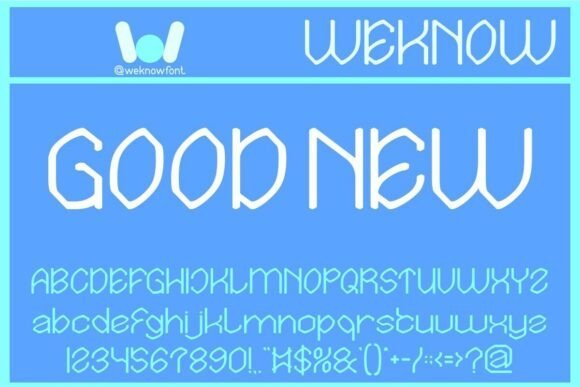
The Birth of a New Look
Remember the moment when a design sparks creativity and takes your project to the next level? For many designers, that moment is when they stumble upon the perfect font to bring their vision to life. For us, that moment came when we discovered Good New Font – a game-changing typeface that seamlessly blends the organic feel of handwritten expression with the precision of geometric structure.
Good New Font is more than just a stylish addition to your design arsenal; it’s a powerful tool that can elevate your visual identity and set you apart from the crowd. Its unique blend of casual script influences and retro-techno aesthetic makes it perfect for logos, headlines, and corporate branding that demands a playful yet professional tone.
Good New Font Key Features
- Font Family: Good New Font offers a modern sans-serif font family with 12 styles, ranging from Light to Bold.
- Unique Characteristics: Features a unique blend of geometric and organic shapes, resulting in a clean and friendly appearance that works well for body text and headings.
Good New Font Review
I’ve had the chance to work with “Good New Font” for a while now, and I have to say, it’s a solid choice for many projects. ✨ The font’s versatility and legibility make it suitable for both body text and headings. It’s also quite easy to read, even at smaller font sizes. The font’s clean design and subtle nuances make it a great choice for digital interfaces and printed materials.
- ✨ Excellent legibility, even at small font sizes
- ✨ Versatile and suitable for both digital and printed materials
- ✨ Clean design with subtle nuances
- ⚠️ Limited character set, which might be a concern for non-Latin scripts
- ⚠️ Not as expressive or attention-grabbing as some other fonts
Overall, I think “Good New Font” is a reliable choice for most projects. It’s not going to blow anyone away with its unique features, but it gets the job done. If you’re looking for a clean, easy-to-read font that’s suitable for a wide range of applications, then “Good New Font” might be worth considering.
Good News Font is a versatile font that can be used in a variety of applications. Here are some tips for getting the most out of it:
- Use Good News Font for headlines and titles to add a touch of elegance and sophistication.
- Pair Good News Font with other fonts to create a unique and interesting typography combination.
- Use Good News Font for body text to create a clean and modern look.
Exploring the Good News Font